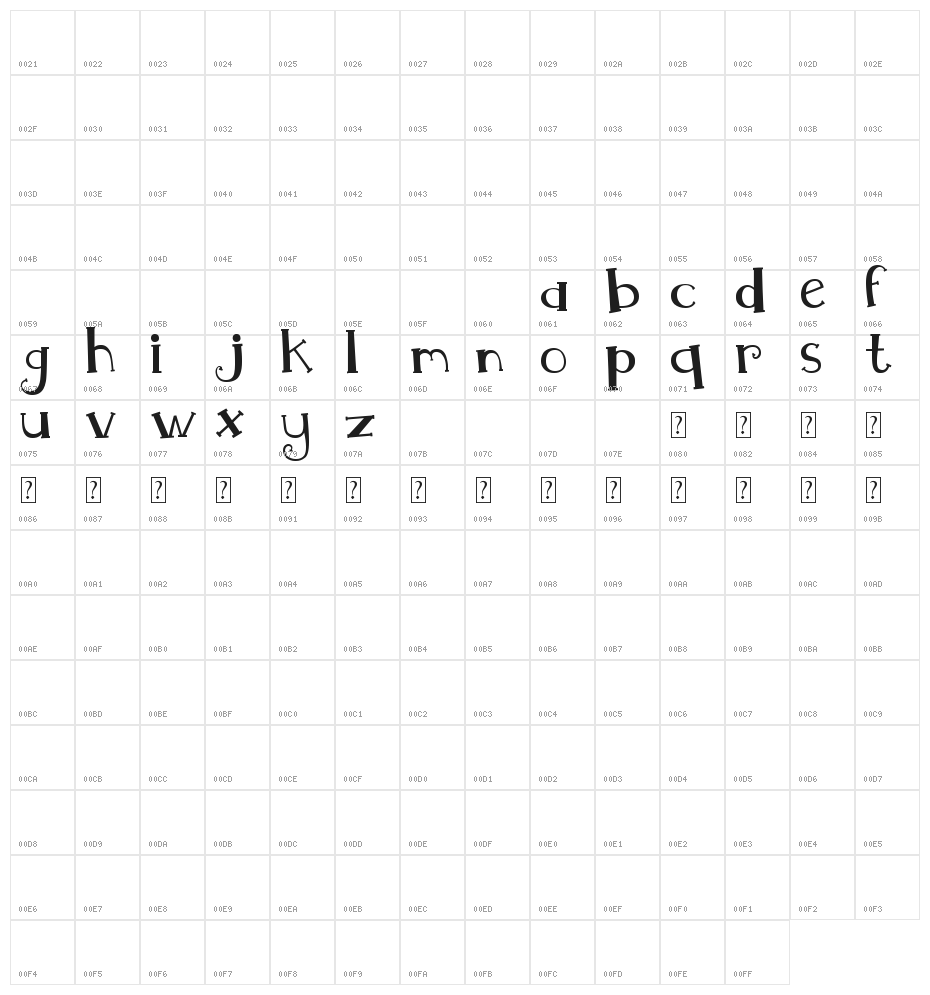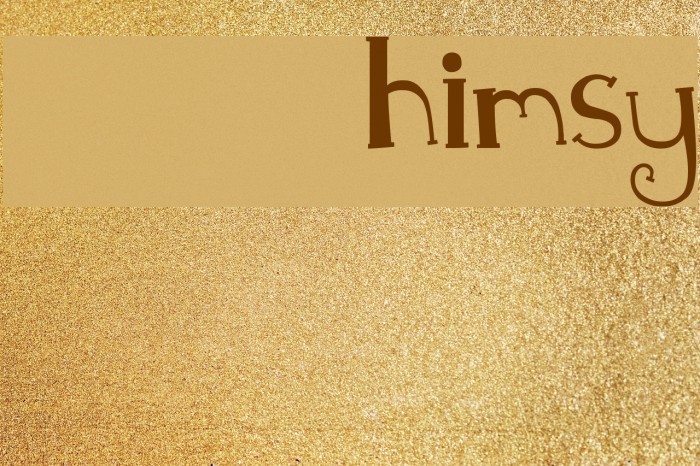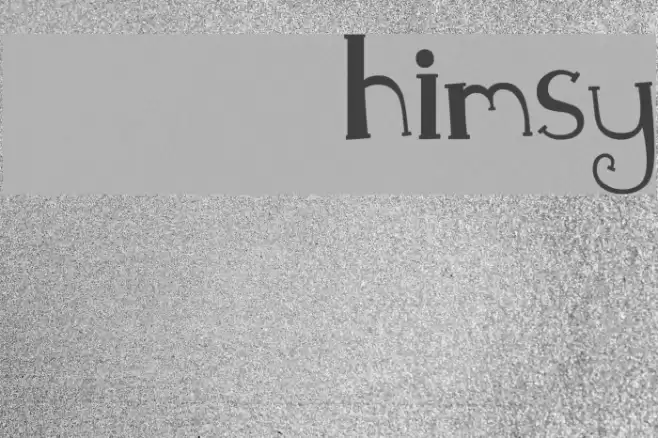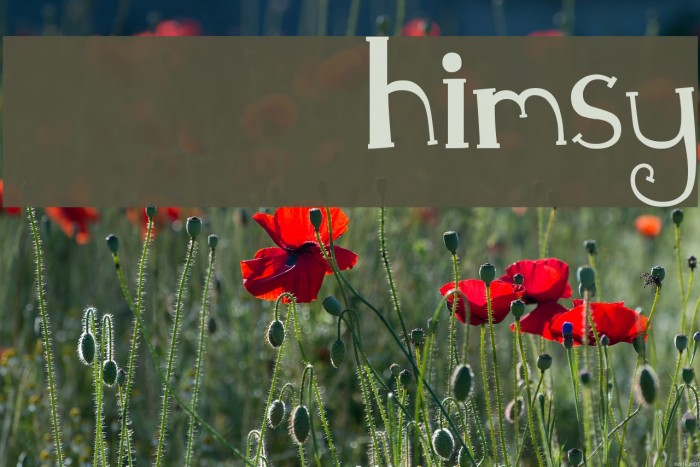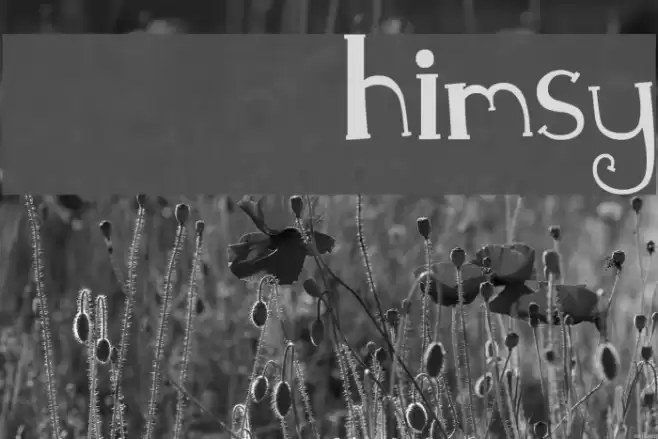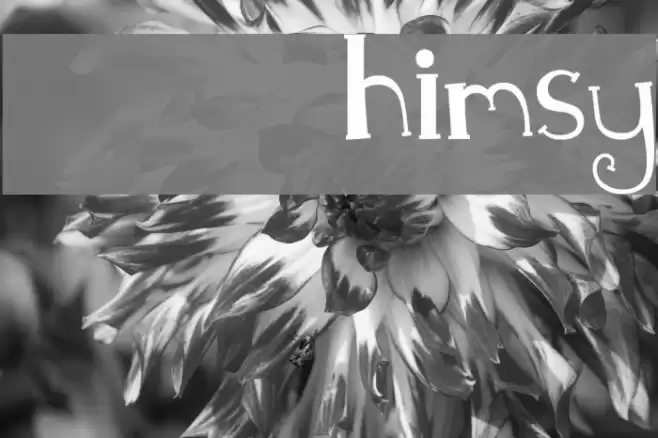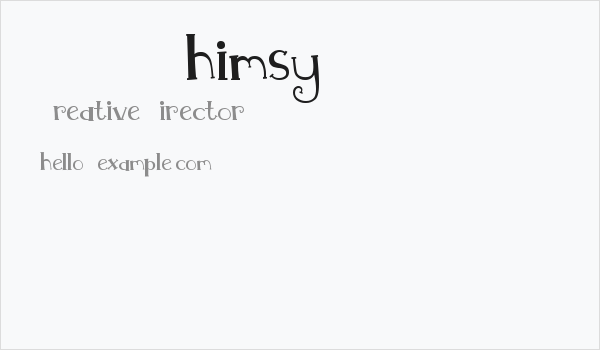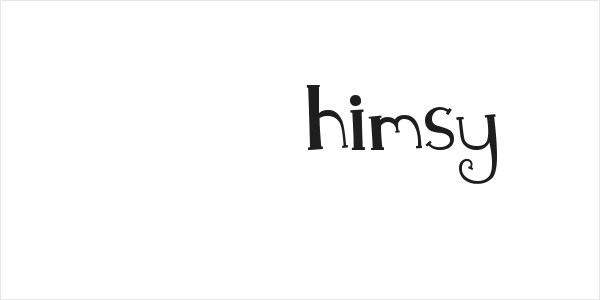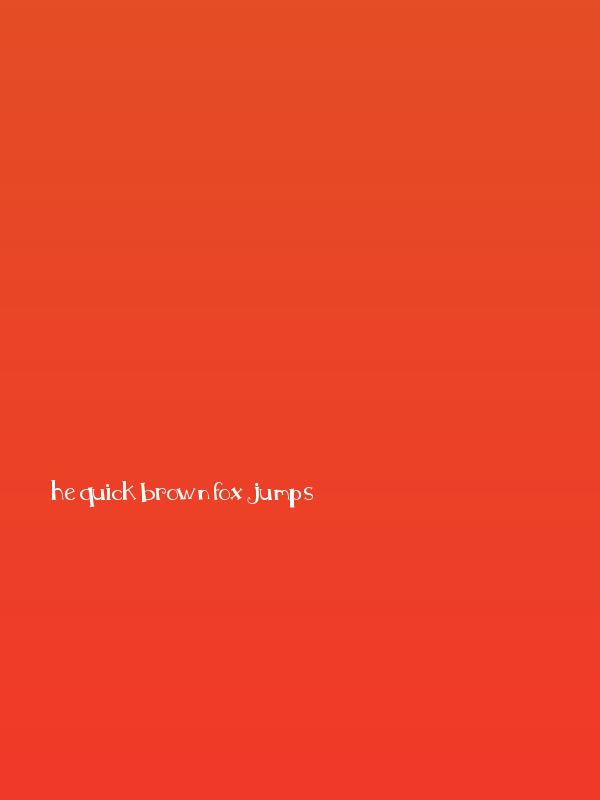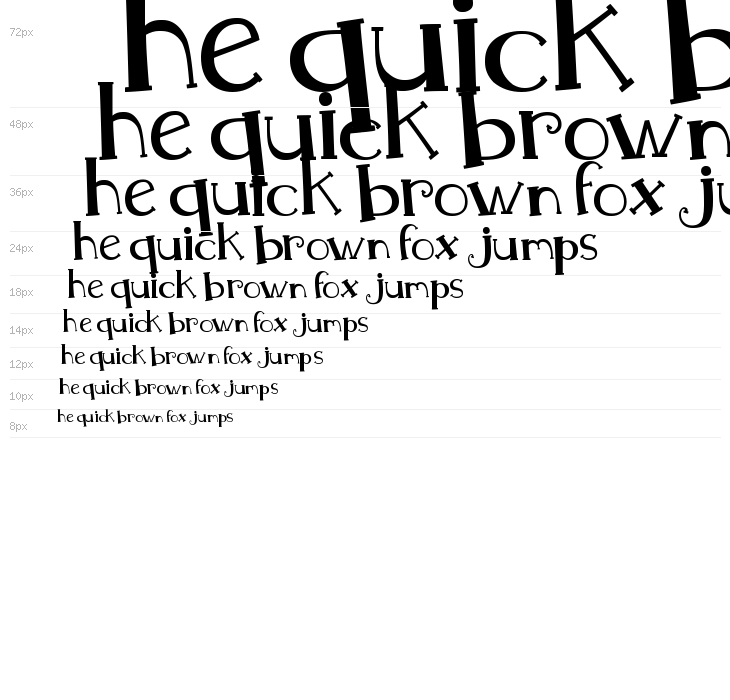
MTF Whimsy Font
MTF Whimsy Description
This playful and whimsical font features a unique and quirky design with exaggerated curves and varying stroke widths. The letters have a hand-drawn appearance, giving them a lively and informal feel. The font's distinctive style is characterized by its irregular shapes and playful loops, making it stand out in any design. Its artistic flair and creative touch make it suitable for projects that require a fun and engaging aesthetic. The font's overall look is both charming and eye-catching, perfect for adding a touch of personality to any text.